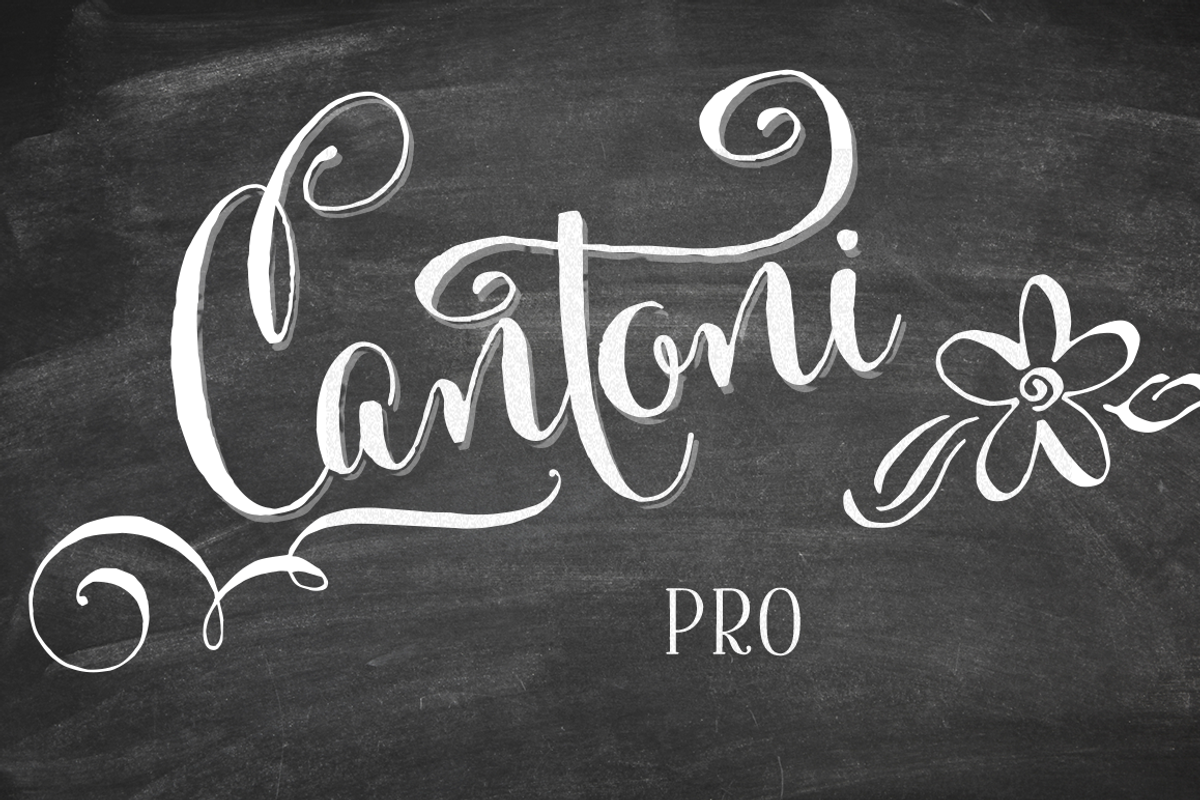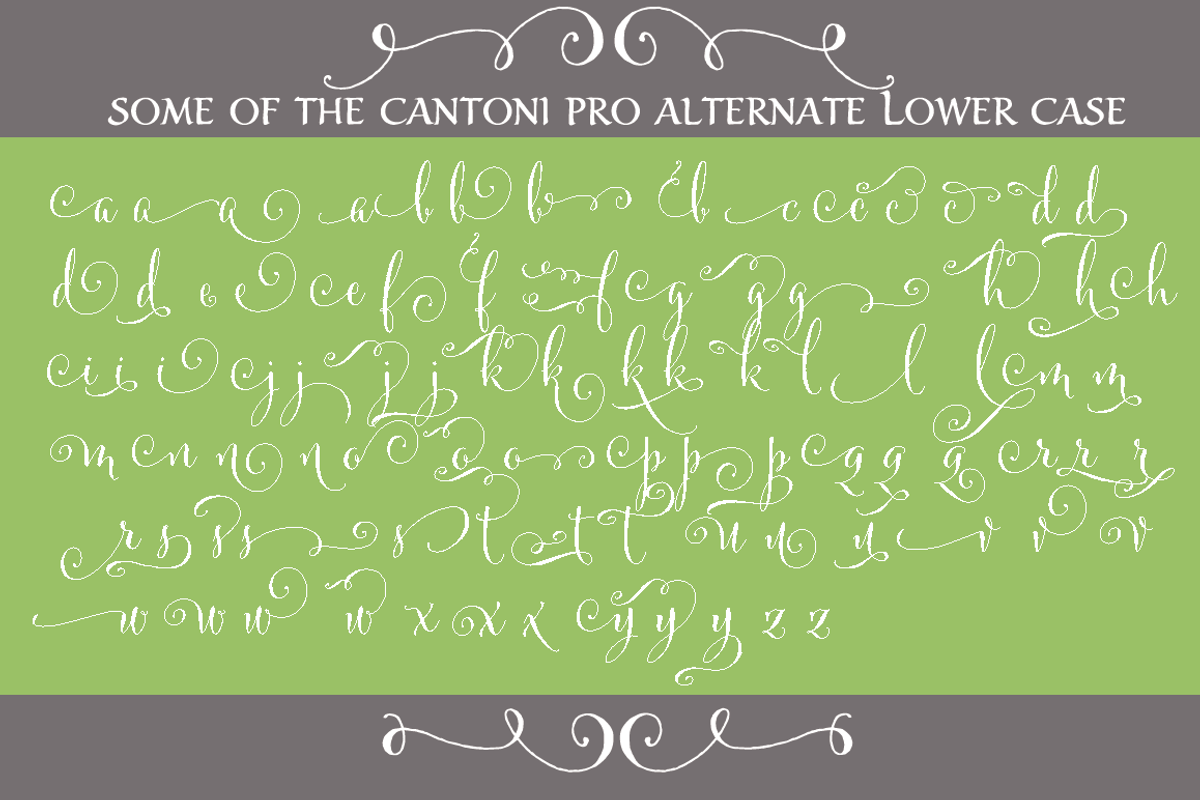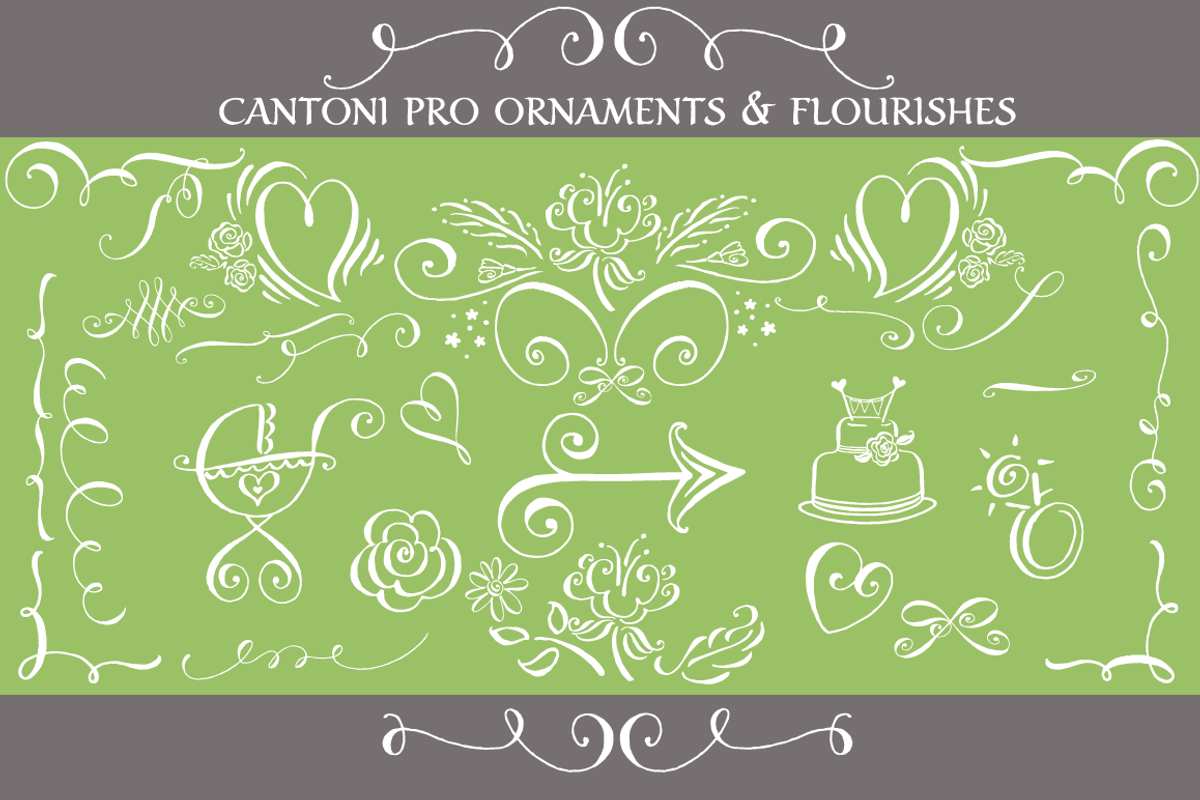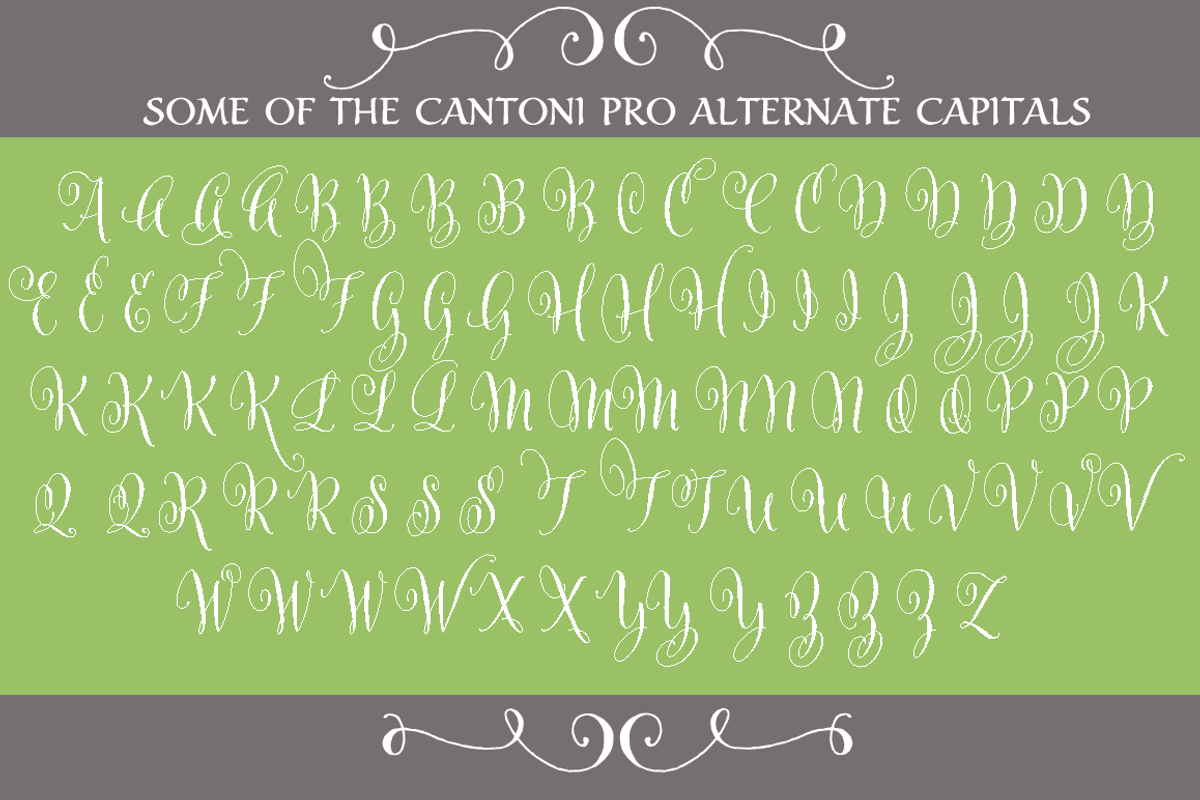
Cantoni Pro Hand Lettered Font
The Cantoni Pro Font is hand lettered with a variety of standard and alternate characters that play together well. And with a total of 1265 glyphs, you can play for as long as you like. Additional features include: Roman numerals, Fractions, Ordinals, Ornate and Old Style numbers, Greek symbols, a set of Flourishes and Ornaments. It also includes Western and Central European, Romanian and Turkish language support.
Named after my large Italian family, Cantoni is a font family with a unique variety of letters based on my own fluid upright style of brush lettering, that reminds me of every family I know. There are creative and conservative siblings, crazy in a good way cousins, affable aunts and corny joke telling uncles who somehow come together and form one cohesive unit. The party starts. The fun begins. And soon they're all laughing and dancing up and down the baseline.
In the same way, when you use the Open Type features to insert a “wild t”, begin a name with a “flashy f” or end a word with a “rambling r”, the design comes to life.